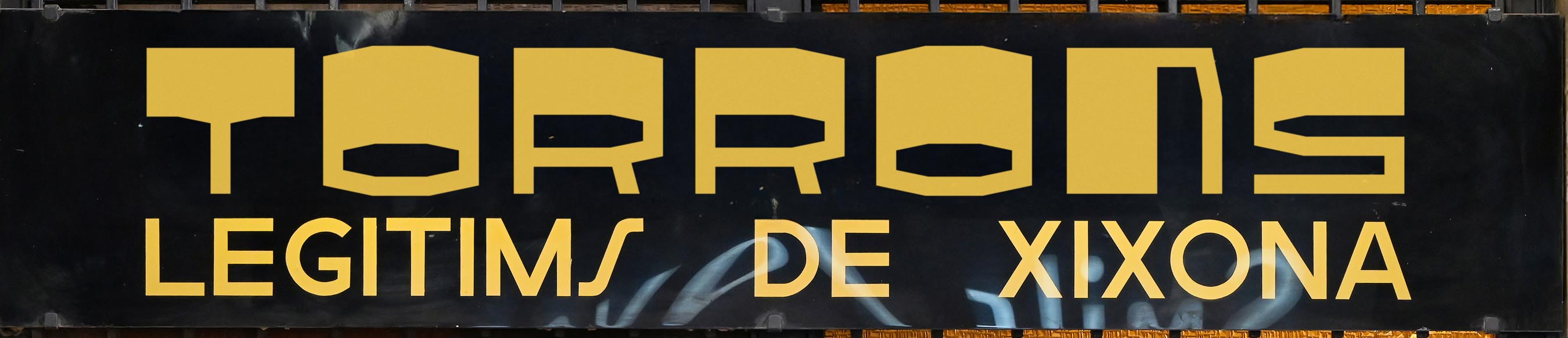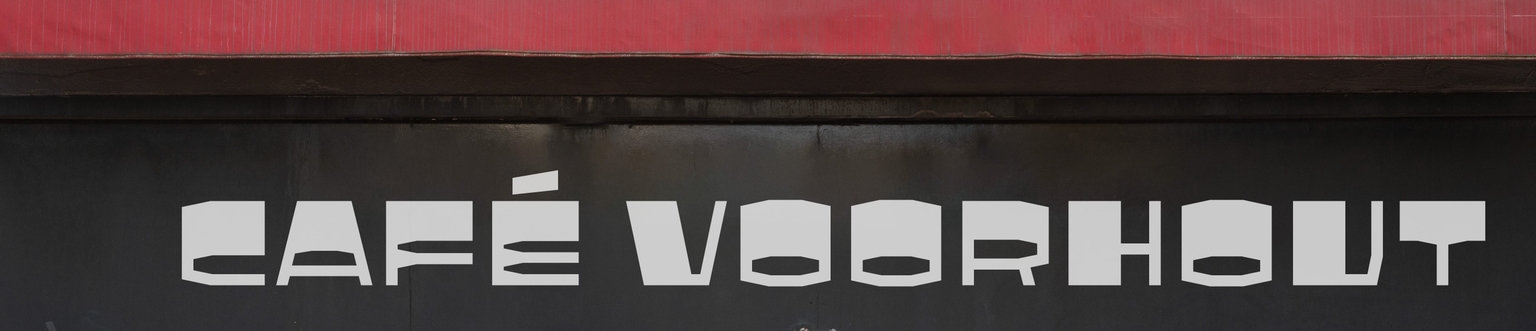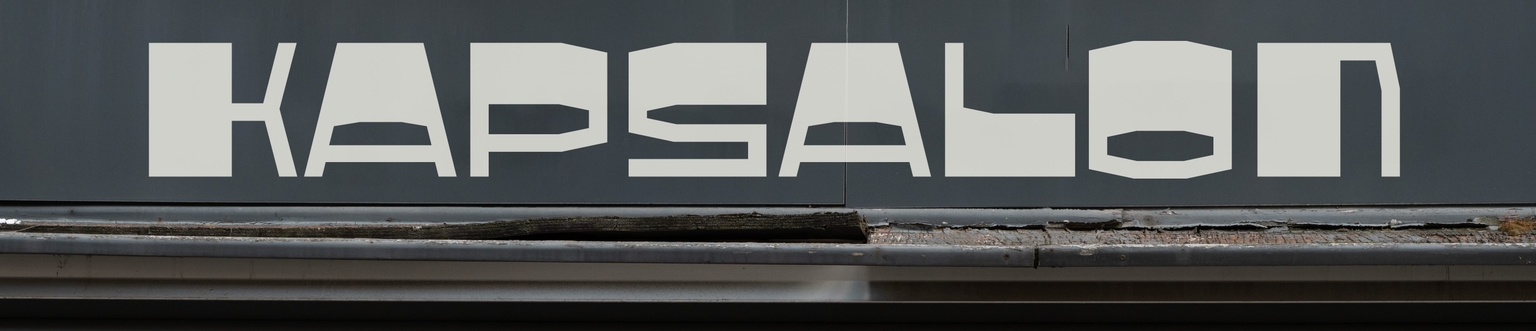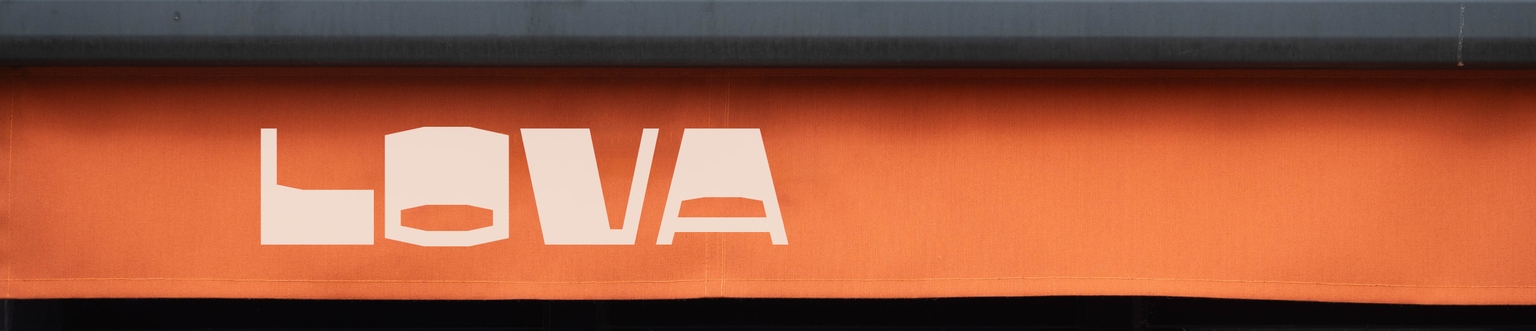
Neurus
Neurus is a bold and playful display typeface designed by Ramiro Espinoza, inspired by the expanded, reverse-contrast lettering styles popular in 1970s signage—particularly those found across the streets of Paris and Barcelona. With their wide proportions, exaggerated horizontals, and unexpected weight distribution, these letterforms exude retro charm and confident eccentricity.
Neurus embraces that visual language and transforms it into a dynamic and versatile digital typeface. Its name is a subtle nod to fans of 1970s Argentine animation, alluding to the infamous Professor Neurus, a villain from the cult cartoon Hijitus,
Ideal for editorial headlines, posters, logos, music festivals communication and expressive branding, Neurus brings vintage flair into contemporary design with style and wit.